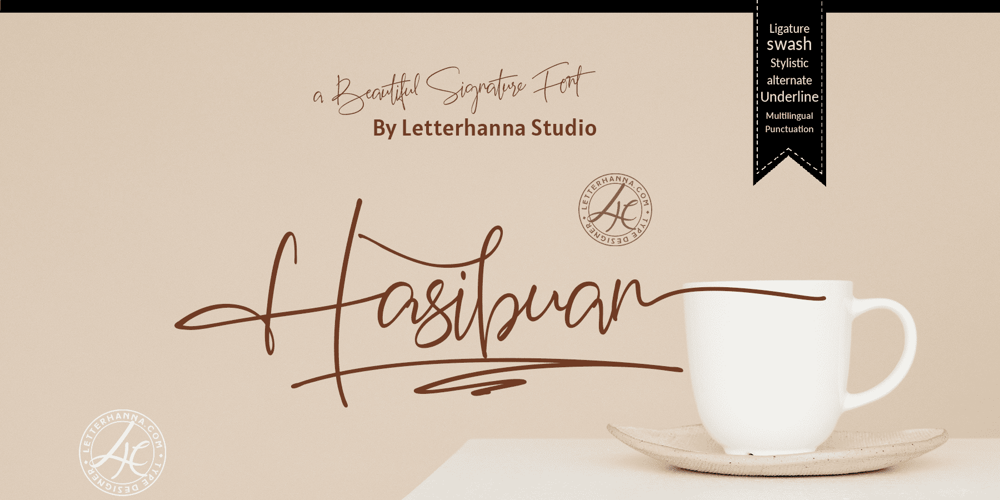
Hasibuan
Hasibuan font
Hasibuan Font Family was designed by Rinaldo Hasibuan and published by Letterhanna Studio. Hasibuan contains 1 styles and family package options. Hasibuan is a font with Signature style, but with the vibe of real hand lettering, with a lot of swashes, ligatures and stylistic alternate, Hasibuan Font is perfect for many different project such as logos & branding, invitation, wedding designs, social media posts, advertisements, product packaging, product designs, label, photography, watermark, special events or anything.